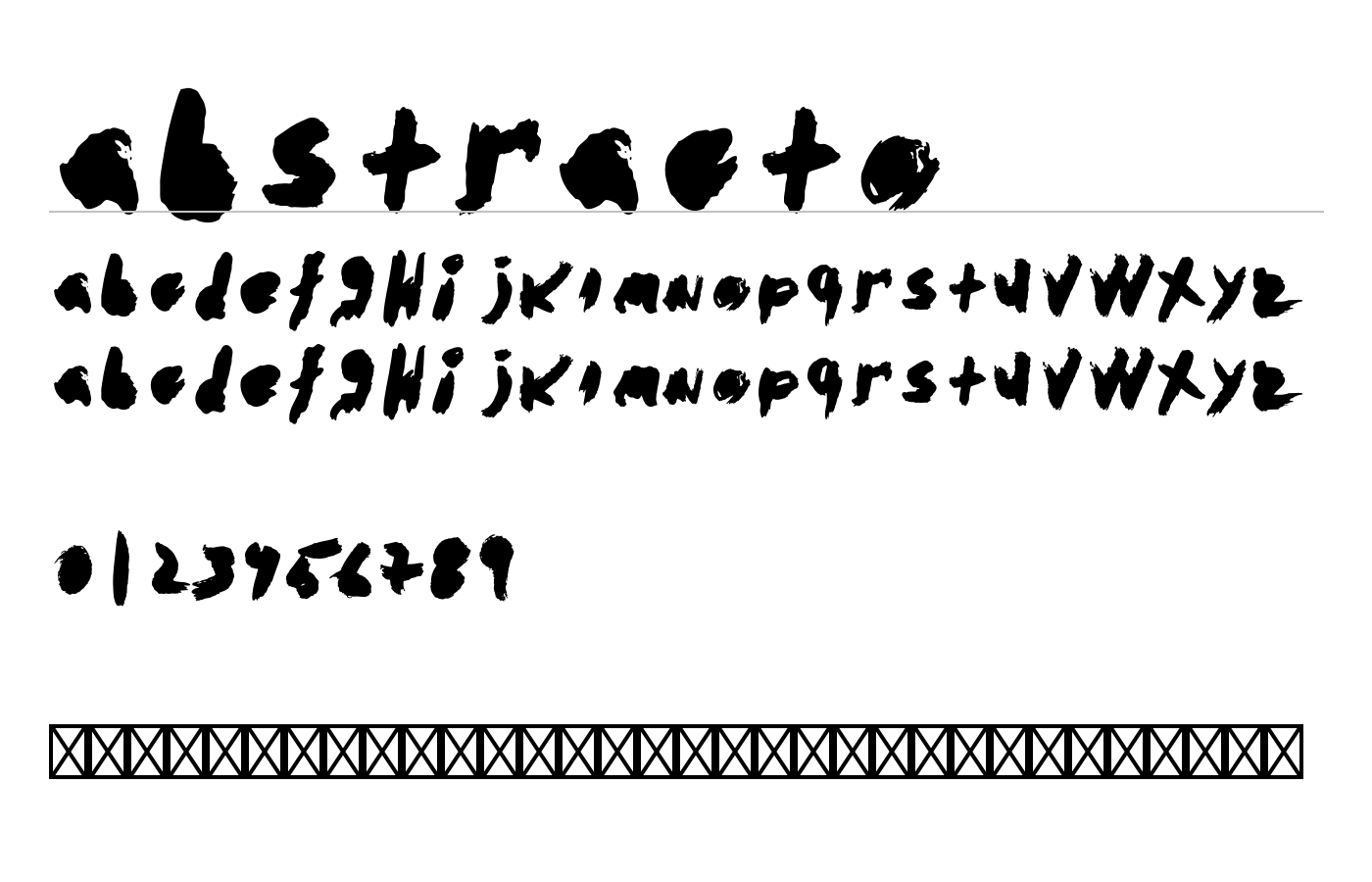
Abstracto is a bold, expressive handwritten font with a rough, textured style that feels spontaneous and artistic. Its irregular shapes and heavy weight give it a raw, creative energy ideal for designs needing a strong, personal touch. This font works well for artistic projects, posters, and branding that seeks to stand out with an organic, edgy vibe.
abstracto Font
About abstracto Font
| Font family | abstracto Font |